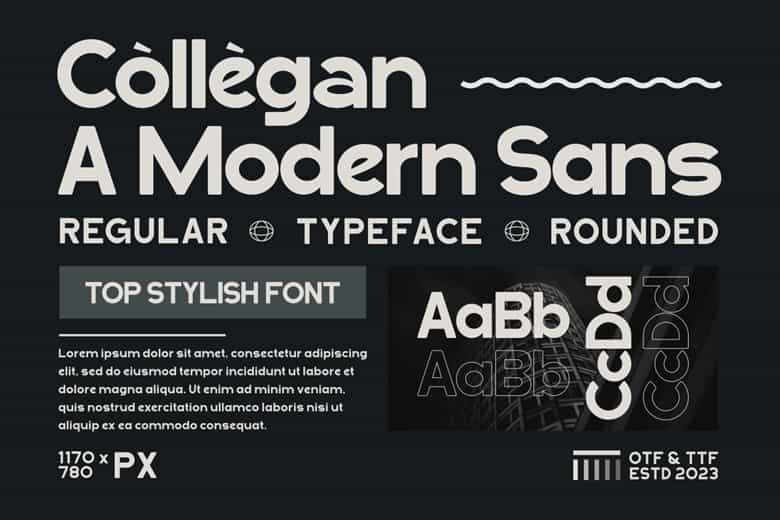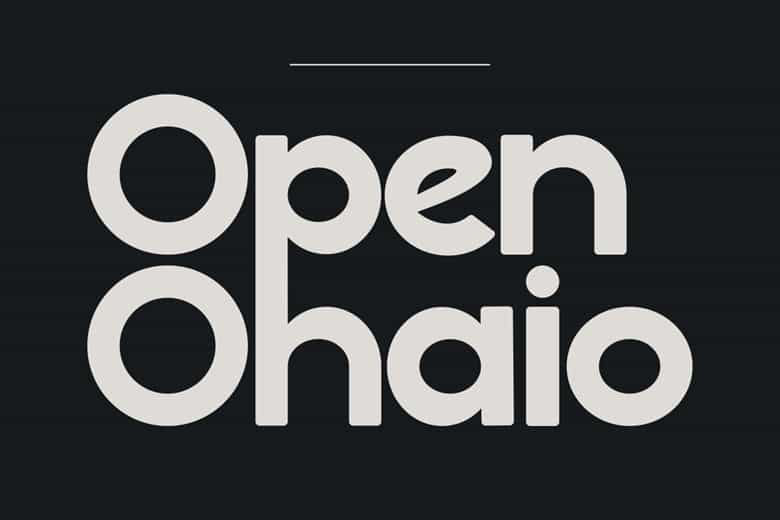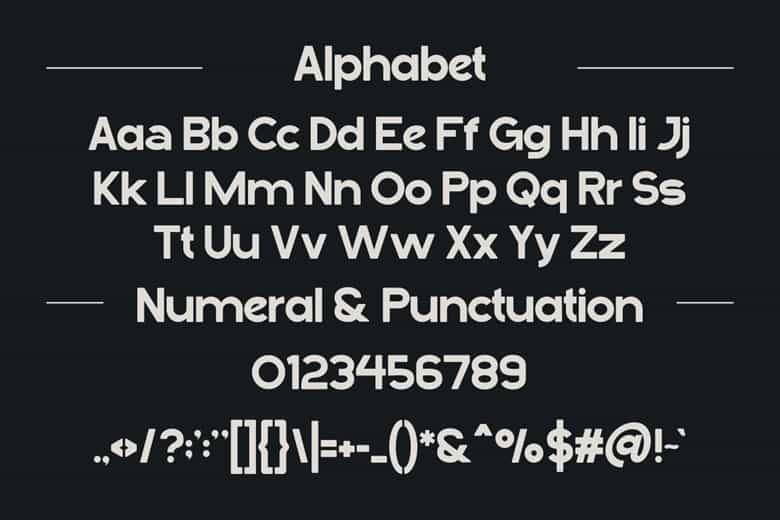
Collegan is a minimalist and elegant sans serif font that gives your work that urban and stylish look. Collegan has a neat and elegant design that will lend a sophisticated air to any site or publication. No matter if you want to design a high-quality logo or stylish headlines, or modern graphics, this font will satisfy your needs as it is simple and does not cause eye strain. Collegan adds modern and simple touch to your design to help you update your style.